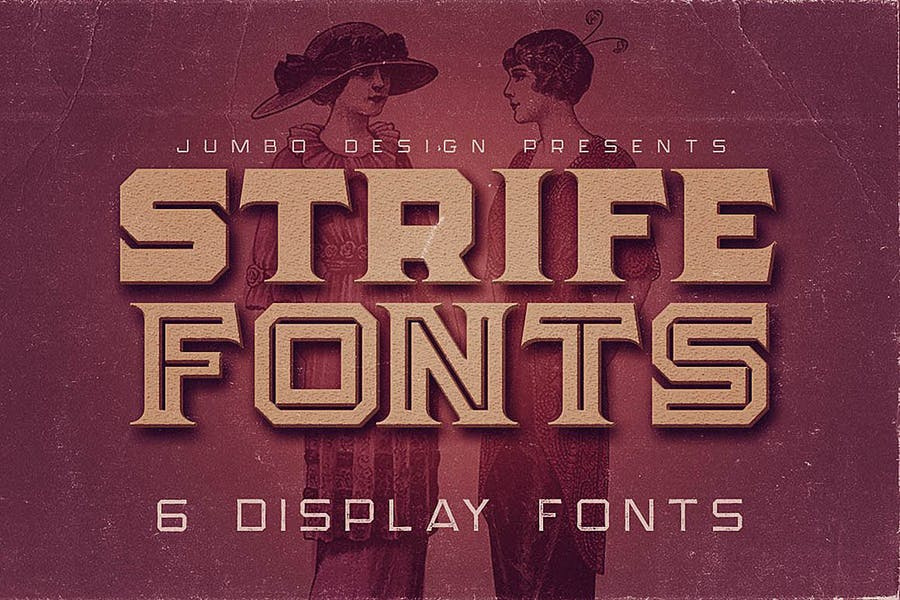
Strife - Display Font
Strife - Display Font is perfect for action movie titles, competitive sports branding, intense gaming logos, military training materials, extreme sports promotions, combat sports events, survival gear packaging, warrior-themed campaigns, conflict resolution services, competitive fitness branding, battle-tested product marketing, and powerful storytelling applications.
Strife - Display Font is exciting because it embodies raw determination and uncompromising strength with bold, battle-hardened letterforms that seem forged in the heat of conflict, perfectly capturing the relentless spirit of those who face challenges head-on and emerge victorious through sheer force of will and unwavering courage.
The Strife - Display Font family includes warrior variations: Regular, Bold, Heavy, Condensed, Distressed, and Battle-worn styles, providing designers with a complete combat typography arsenal to create powerful compositions that honor the strength found in struggle and the victory earned through perseverance.
Fight for impact with Strife - Display Font Free Download. This powerfully aggressive display typeface brings the intense energy and unbreakable spirit of conflict resolution to contemporary design projects. Whether you're creating competitive brand identities, designing high-stakes event materials, or developing intensity-driven marketing campaigns, Strife - Display Font delivers unmatched force and commanding presence that dominates attention.
The font's aggressively crafted letterforms reflect the hardened strength and battle-tested resilience that emerge from facing life's greatest challenges, with angular strokes and uncompromising proportions that suggest unwavering determination and the refusal to surrender. Each character embodies the warrior spirit that transforms struggle into strength.
Strife - Display Font excels in creating memorable brand experiences for businesses in competitive sports, military services, and high-intensity training sectors. Its commanding presence transforms ordinary communications into battle cries that resonate with audiences who understand that true strength comes from facing adversity and emerging stronger.
Professional designers value how Strife - Display Font maintains its warrior character while providing exceptional functionality across diverse high-impact applications. The comprehensive style range ensures optimal performance from intimate motivation materials to massive arena displays, maintaining consistent intensity and competitive credibility.
This remarkable typeface brings instant authority to ventures requiring strength and determination. From military contractors to extreme sports brands, Strife - Display Font creates lasting impressions that communicate resilience, courage, and the unbreakable spirit that defines those who thrive in conflict and emerge victorious.